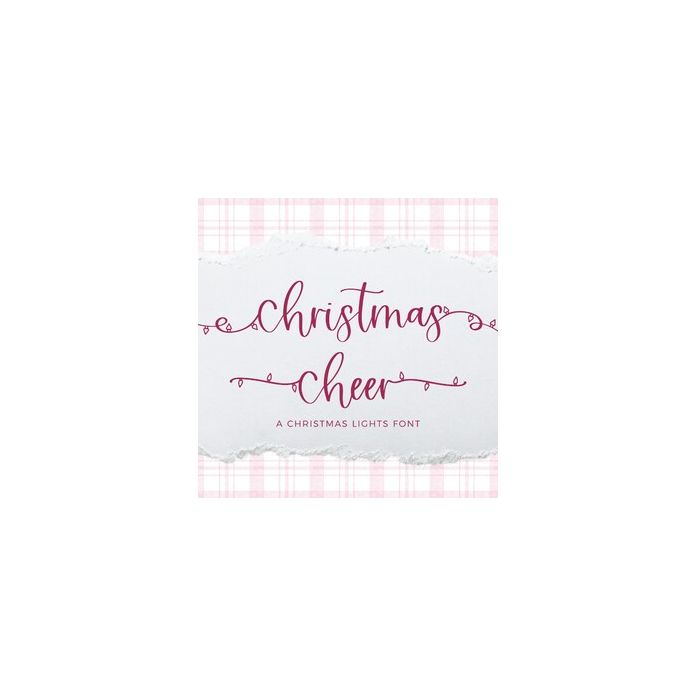
Very merry, indeed! Introducing Christmas Cheer, a modern calligraphy script font packed full of Christmas light swashes & flourishes.
Christmas Cheer Script is best for:
- Christmas cards
- gift tags & personalized items
- SVG designs related to the holiday season
- creating crafty projects with your Cricut or Silhouette machine
- holiday mug design & other apparel
- Christmas ornament
All flourished characters and swashes also include a version *without* Christmas lights, making it a versatile option for non-holiday applications! Christmas Cheer can also be used for:
- website design + website accents - think travel blogs, fashion blogs, & more
- 437 alternate characters, including 52 A-Z swash options, 312 a-z swash options, and a selection of singular flourished characters
- 15 ligatures - ar, db, dh, dk, dl, er, fb, fh, fk fl, ft, ir, or, tt, ur